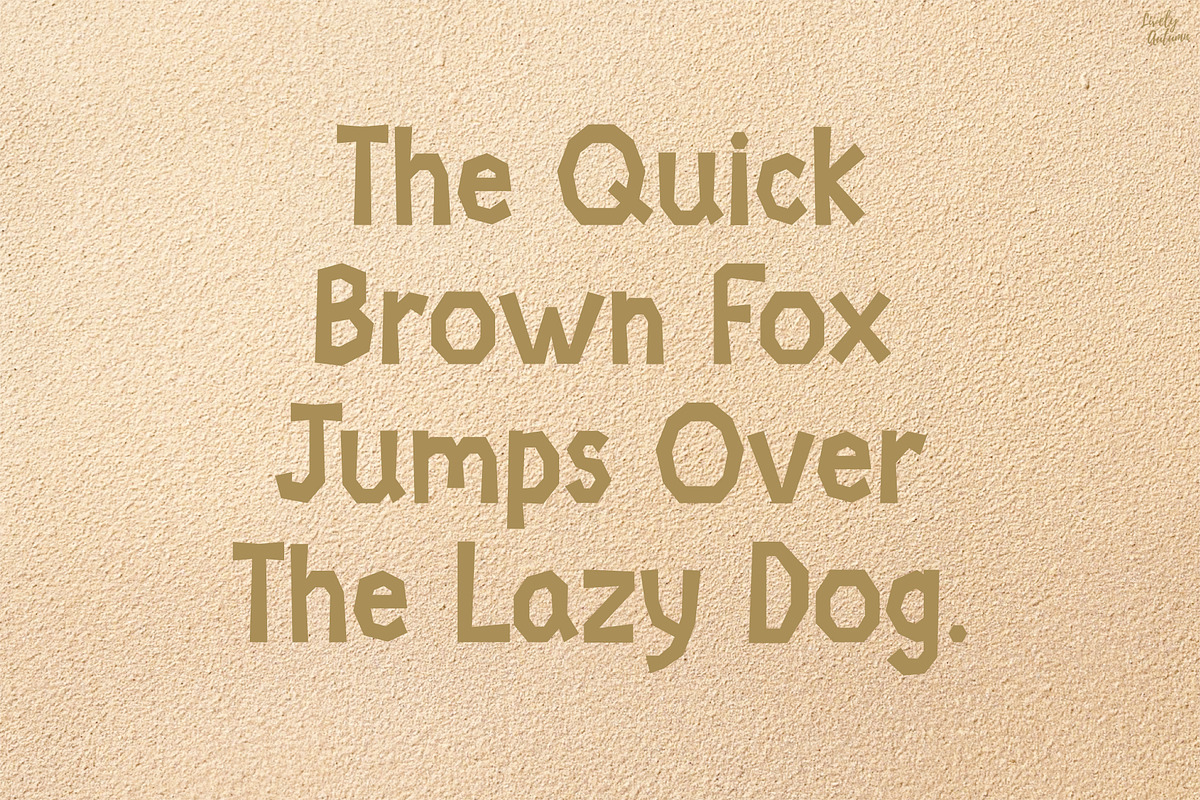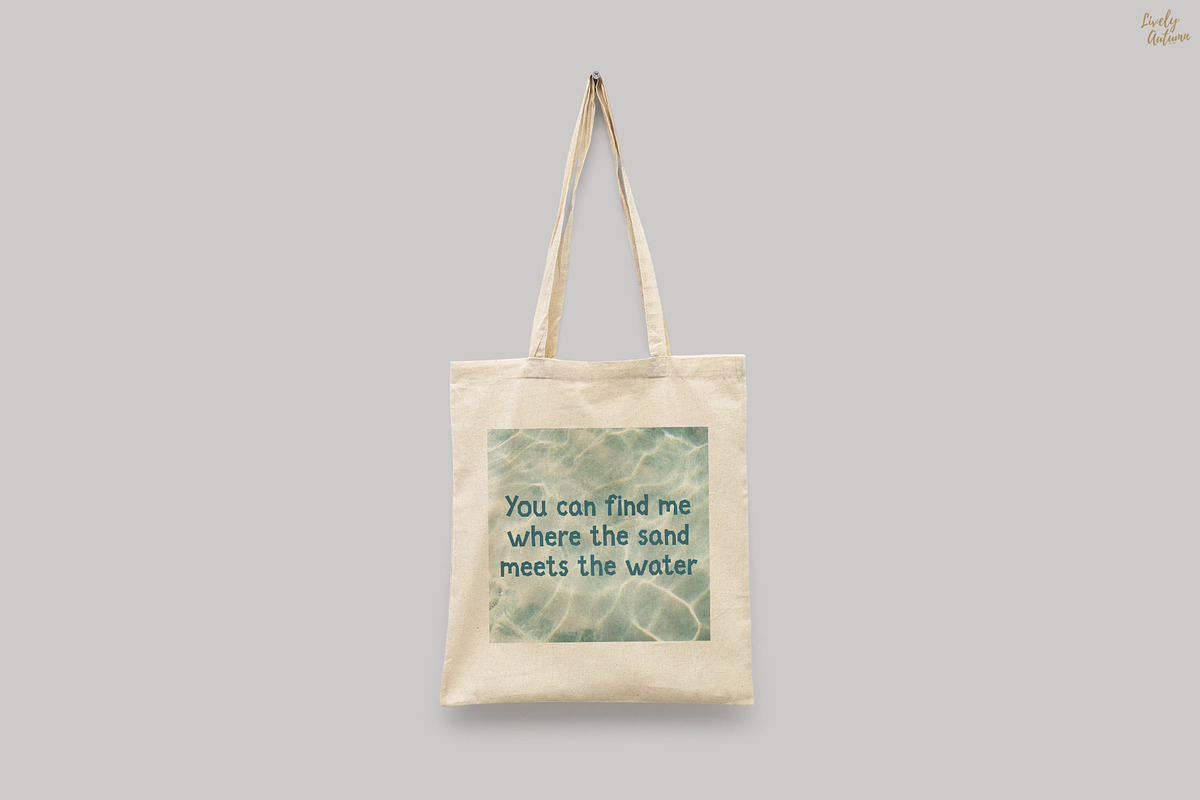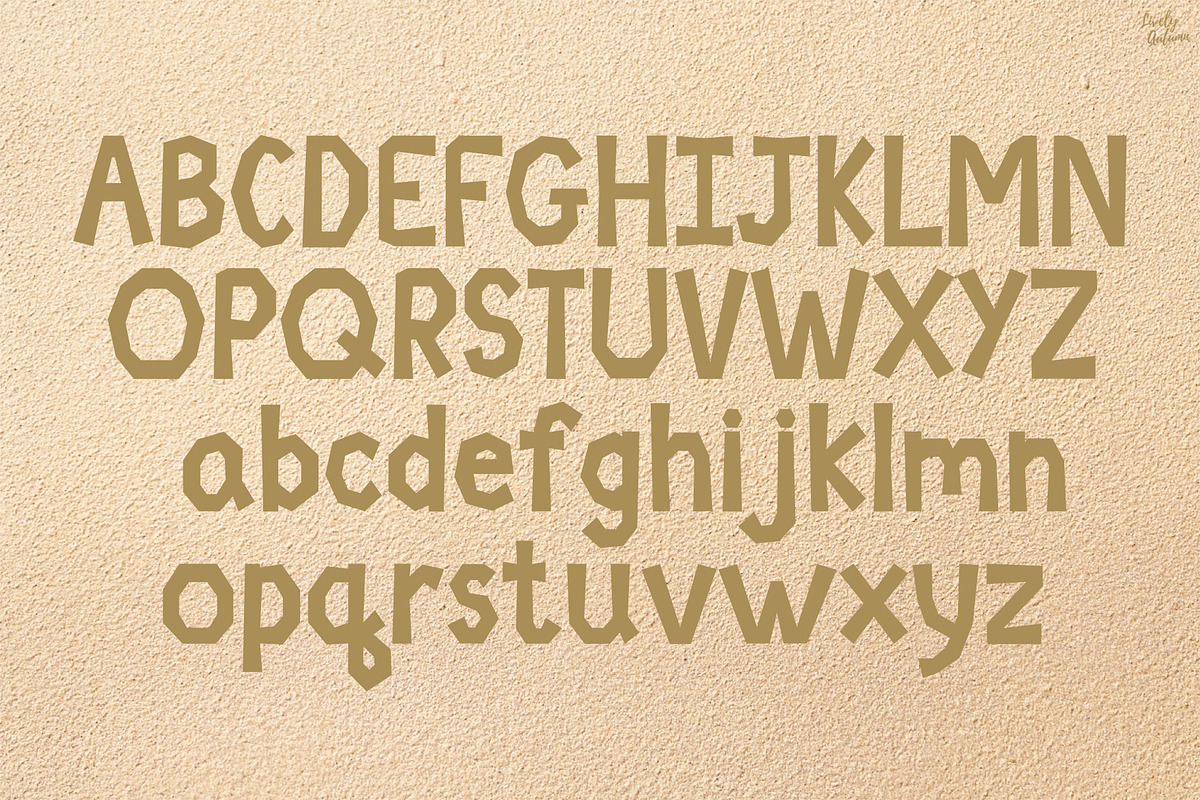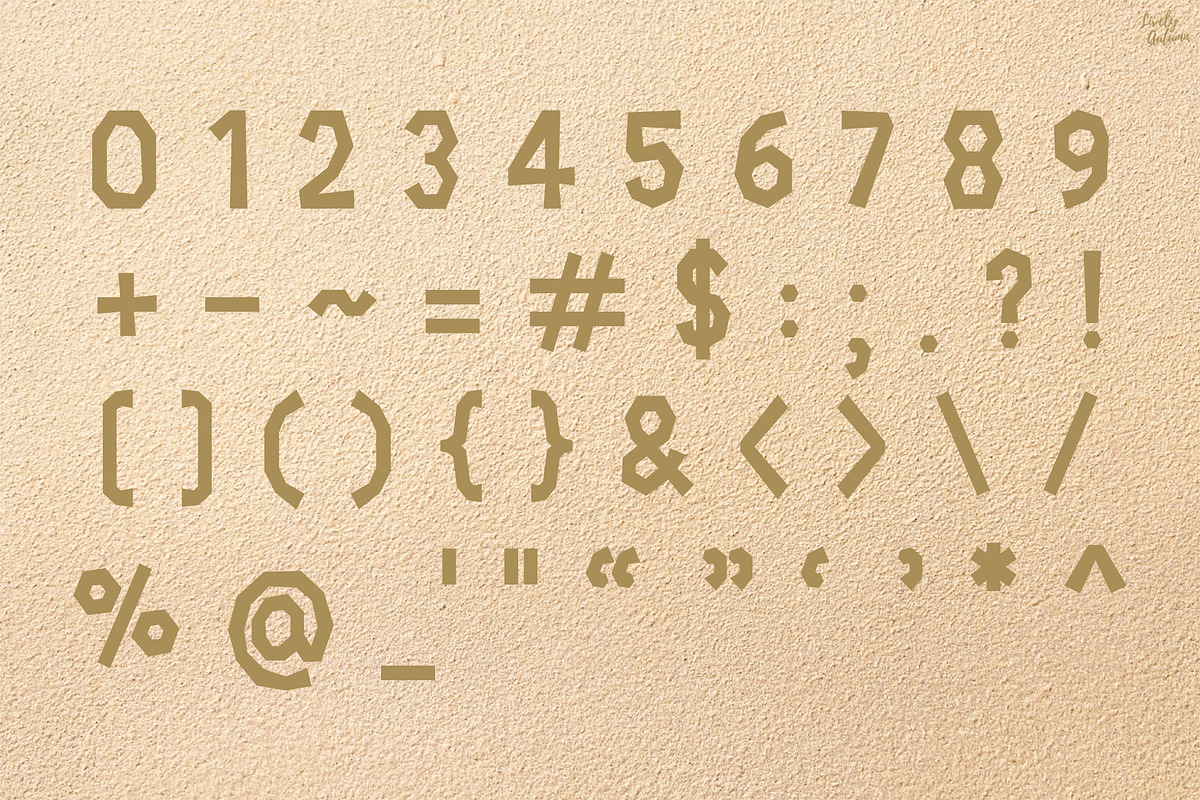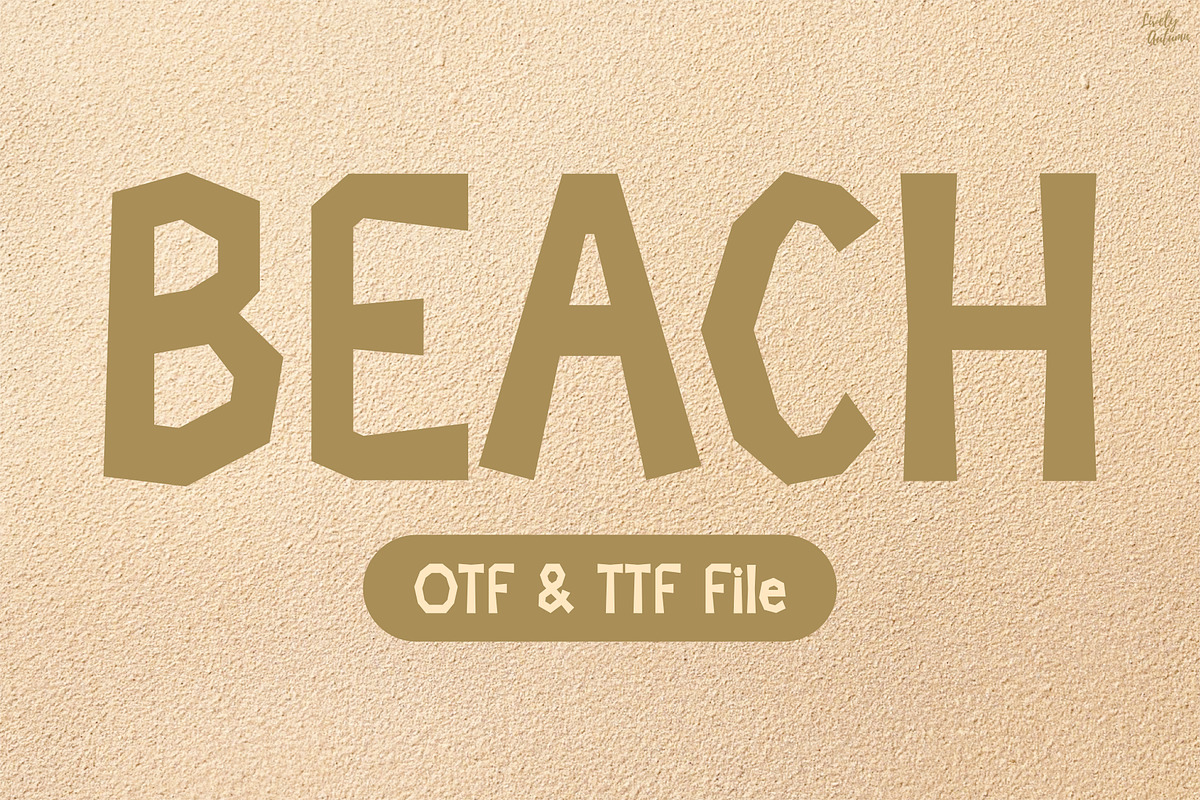
Beach | Display Font
Beach Font is a playful, cartoon-style typeface. Perfect for your personal projects and various projects. From invitations to posters, social media graphics, journals, and much more.